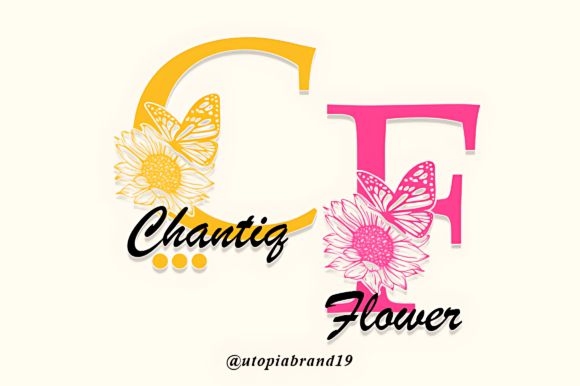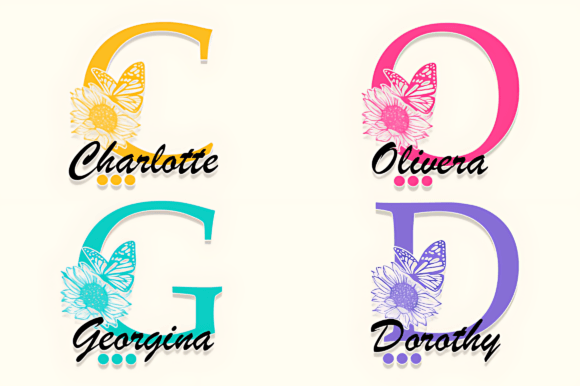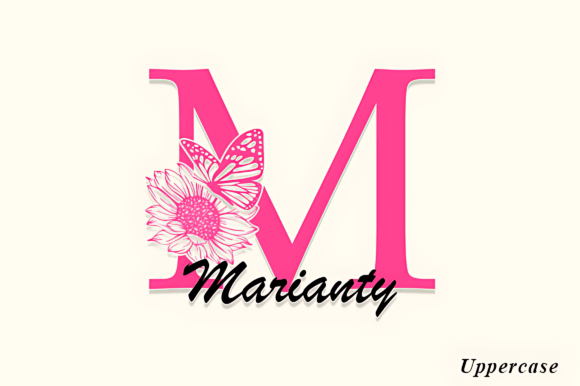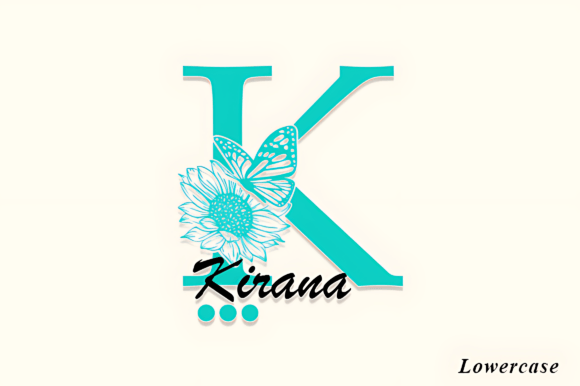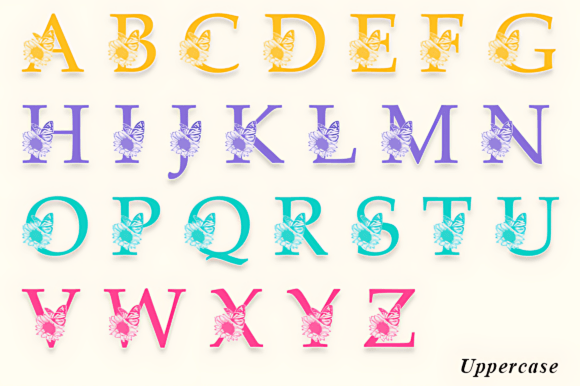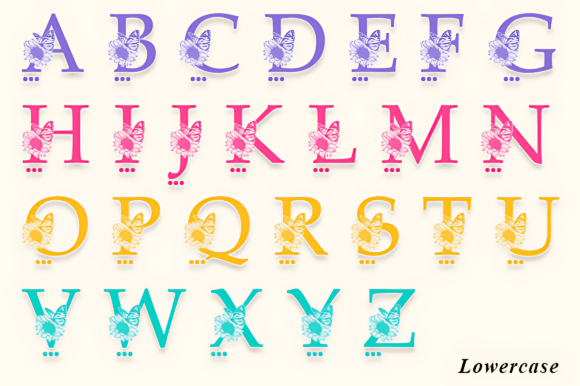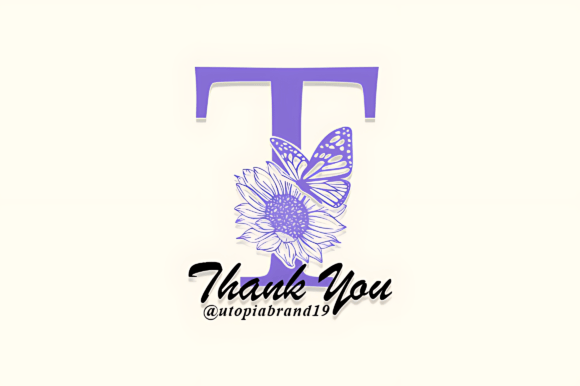
Have you ever found yourself staring at a blank page, struggling to find the perfect font to match your creative vision? I know I have. There’s something about the right font that can elevate an entire design from ordinary to extraordinary. For me, that moment came when I discovered the Chantiq Flower Monogram Font. Its elegant, hand-painted feel immediately captured my attention, and I knew I had to learn more.
The Chantiq Flower Monogram Font is a beautiful decorative font that’s perfect for adding a touch of whimsy to your designs. With its lovely ornaments and authentic feel, it’s a must-have for any designer looking to create stunning wedding invitations, beautiful stationery art, eye-catching social media posts, and cute greeting cards. Whether you’re a seasoned pro or just starting out, this font is sure to inspire your creativity and take your designs to the next level.
Chantiq Flower Monogram Font Key Features
- Font Style: A beautiful, elegant monogram font with floral elements, perfect for adding a touch of sophistication to your designs.
- Unique Characteristics: Each letter is carefully designed with intricate floral details, making it a unique and eye-catching font.
Designer Review: Chantiq Flower Monogram Font
Overall, I found the Chantiq Flower Monogram Font to be a beautiful and unique addition to any design project. ✨ The intricate details and floral patterns add a touch of elegance and sophistication that’s hard to find in other fonts.
- Unique and elegant design that sets it apart from other fonts
- Perfect for adding a touch of whimsy and romance to designs
- Highly customizable, allowing for easy adjustments to color and size
However, I did encounter a few limitations when working with this font. ⚠️ The file size is quite large, which can be a problem when working with slower computers or limited storage space. Additionally, the font’s complexity can sometimes make it difficult to pair well with other fonts, requiring some trial and error to get the desired look.
I would highly recommend the Chantiq Flower Monogram Font to designers looking to add a touch of elegance and sophistication to their projects. While it may have some limitations, the unique design and high level of customization make it well worth the investment.
The Chantiq Flower Monogram Font is ideal for:
- Personalized gifts and decorations.
- Brand logos and marketing materials.
For optimal results, use the Chantiq Flower Monogram Font in combination with elegant and floral design elements.